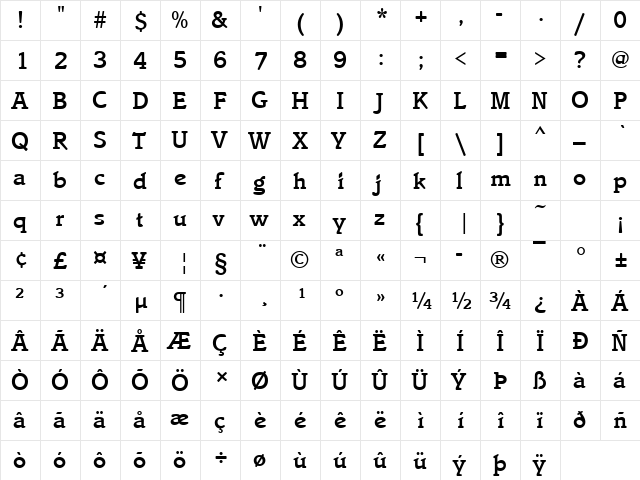
URWIschtarTMed Regular
Design Context for URWIschtarTMed Typeface
URWIschtarTMed is a composed and adaptable typeface that performs quietly and consistently across a wide range of design contexts.
Pro Tip: Use URWIschtarTMed in both headline and body roles to test its range before committing to a single application.